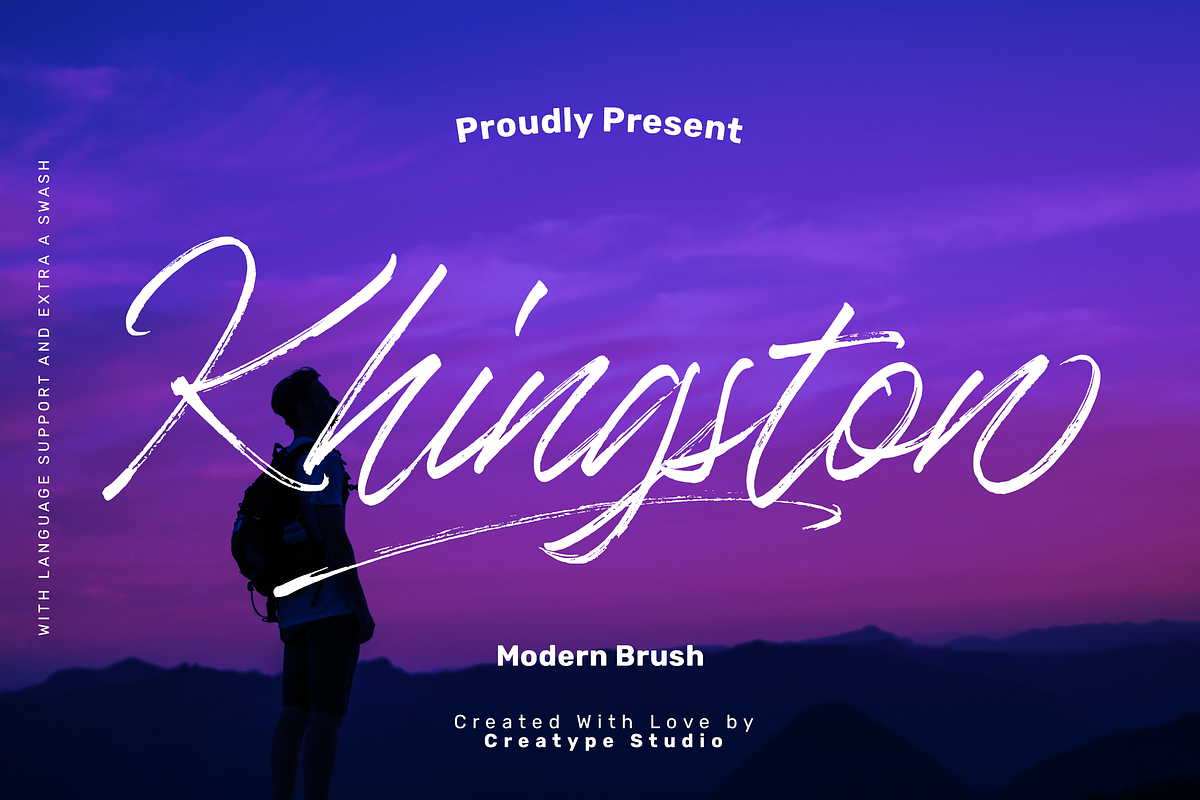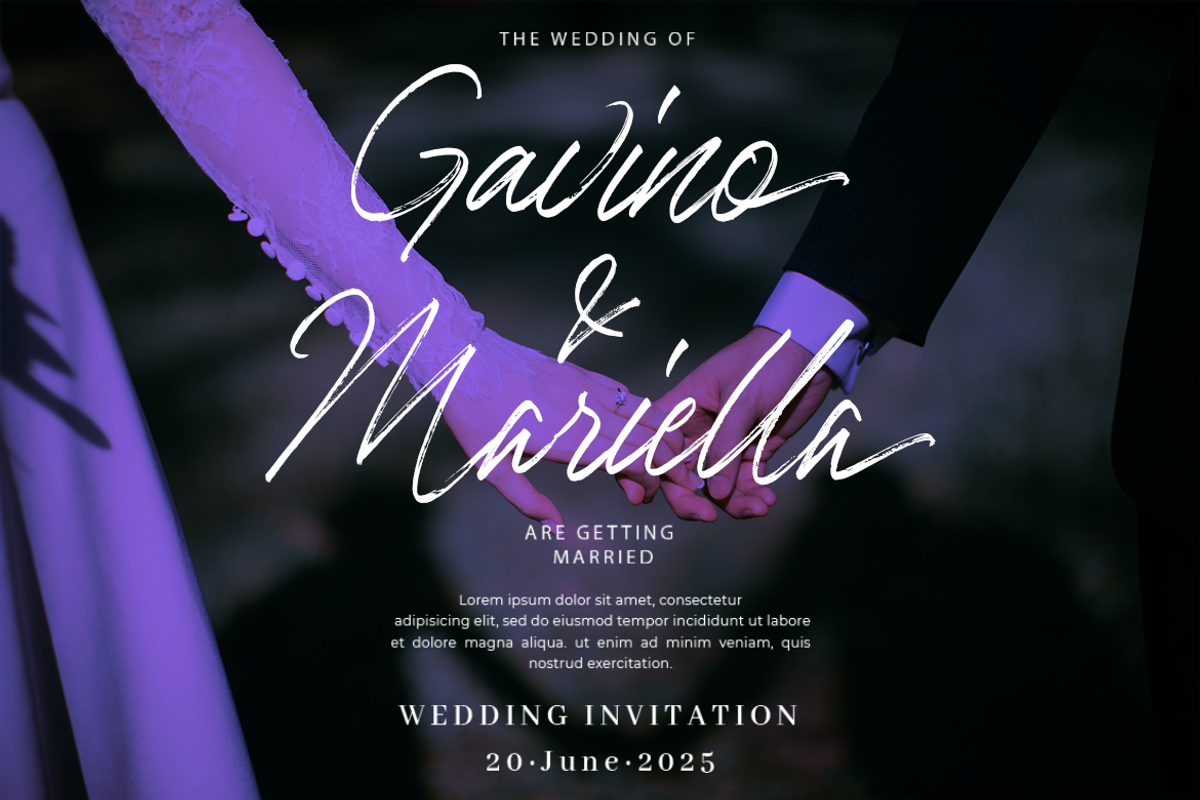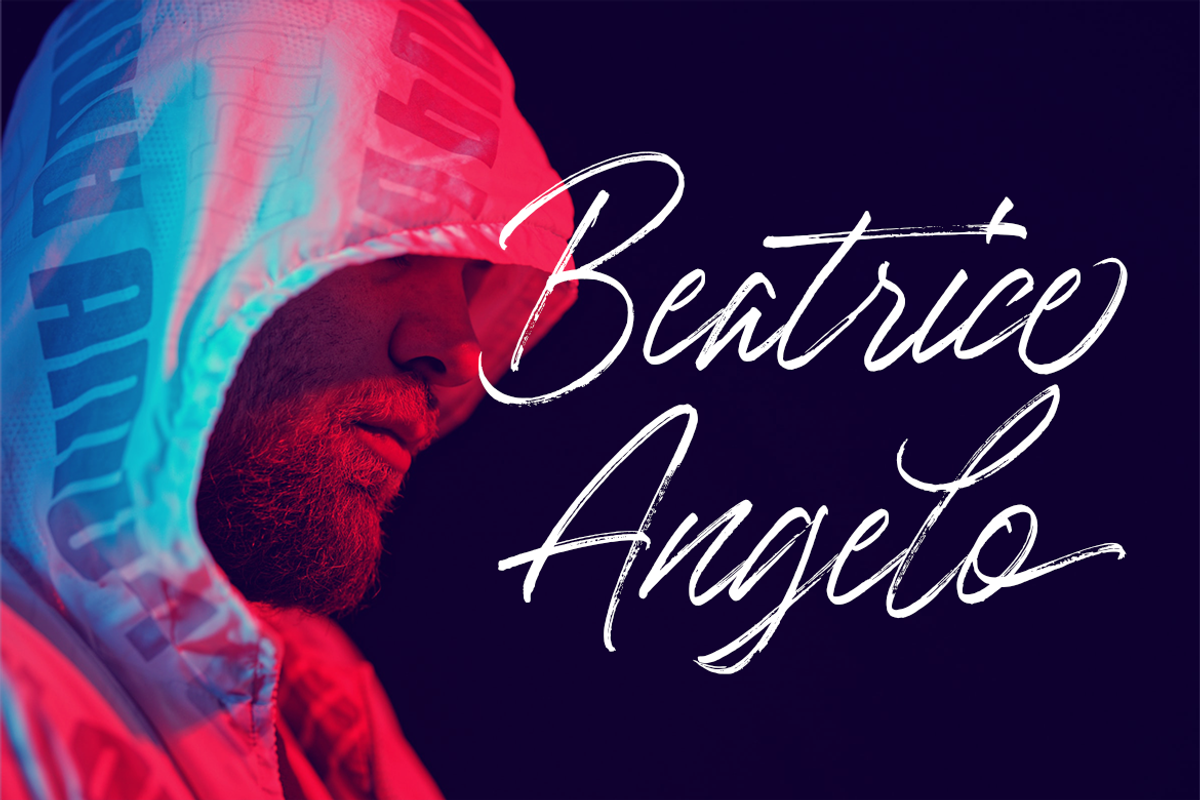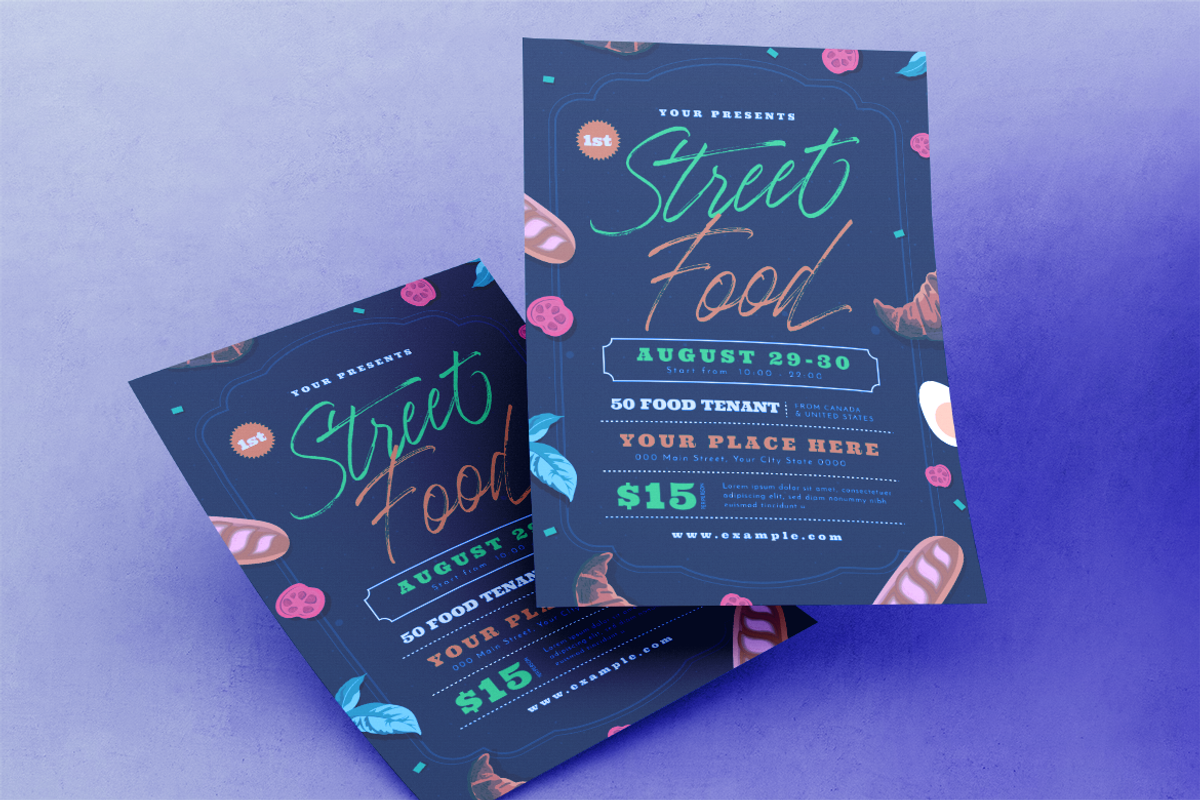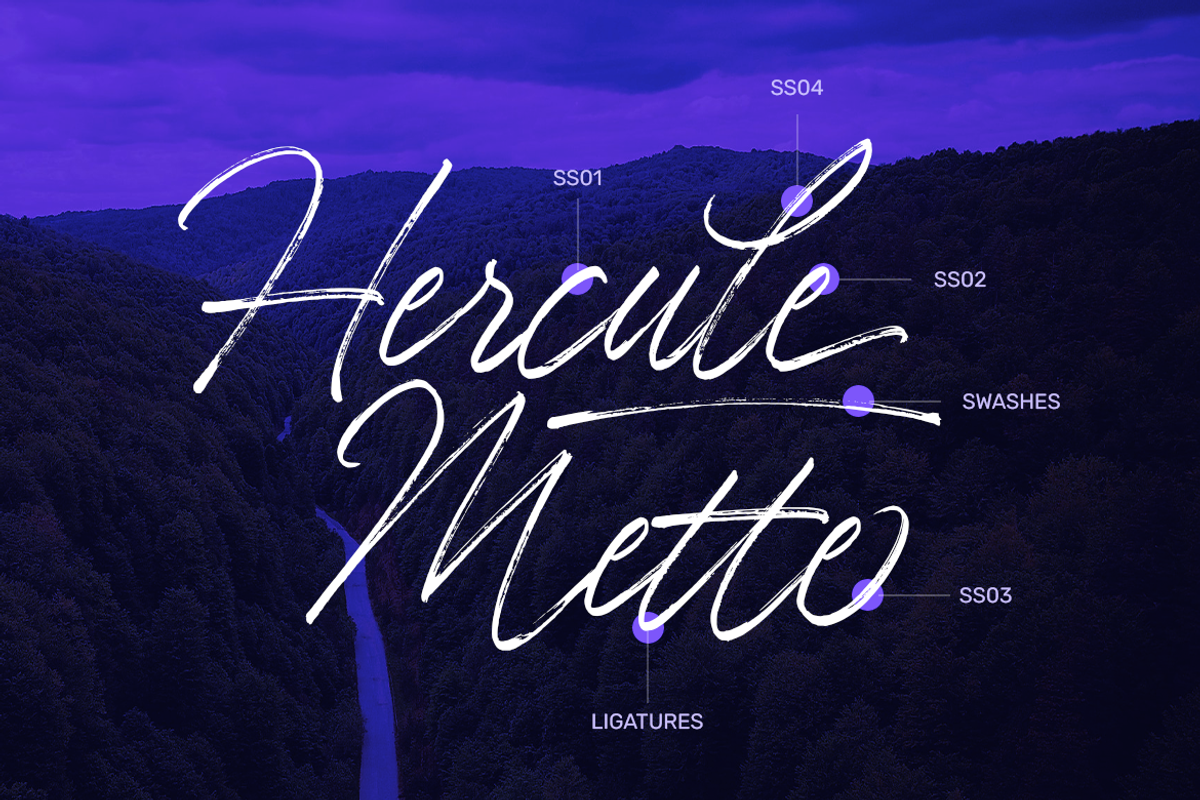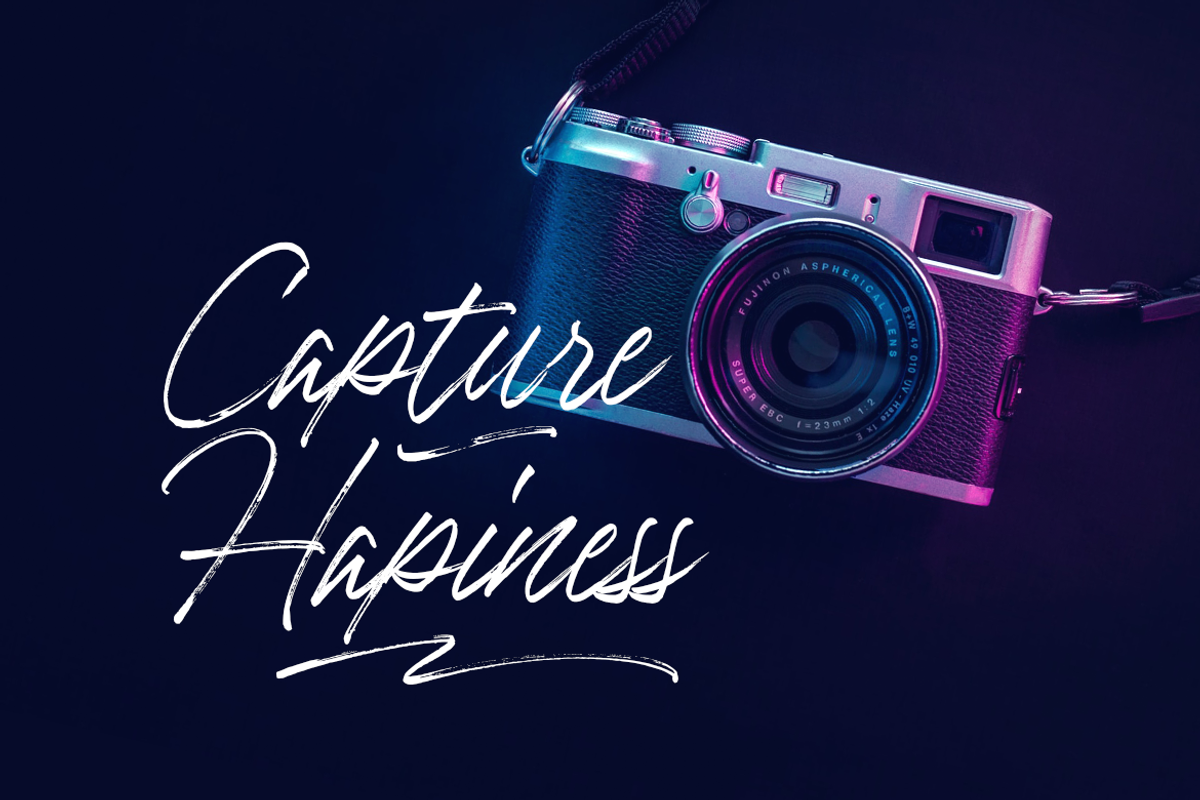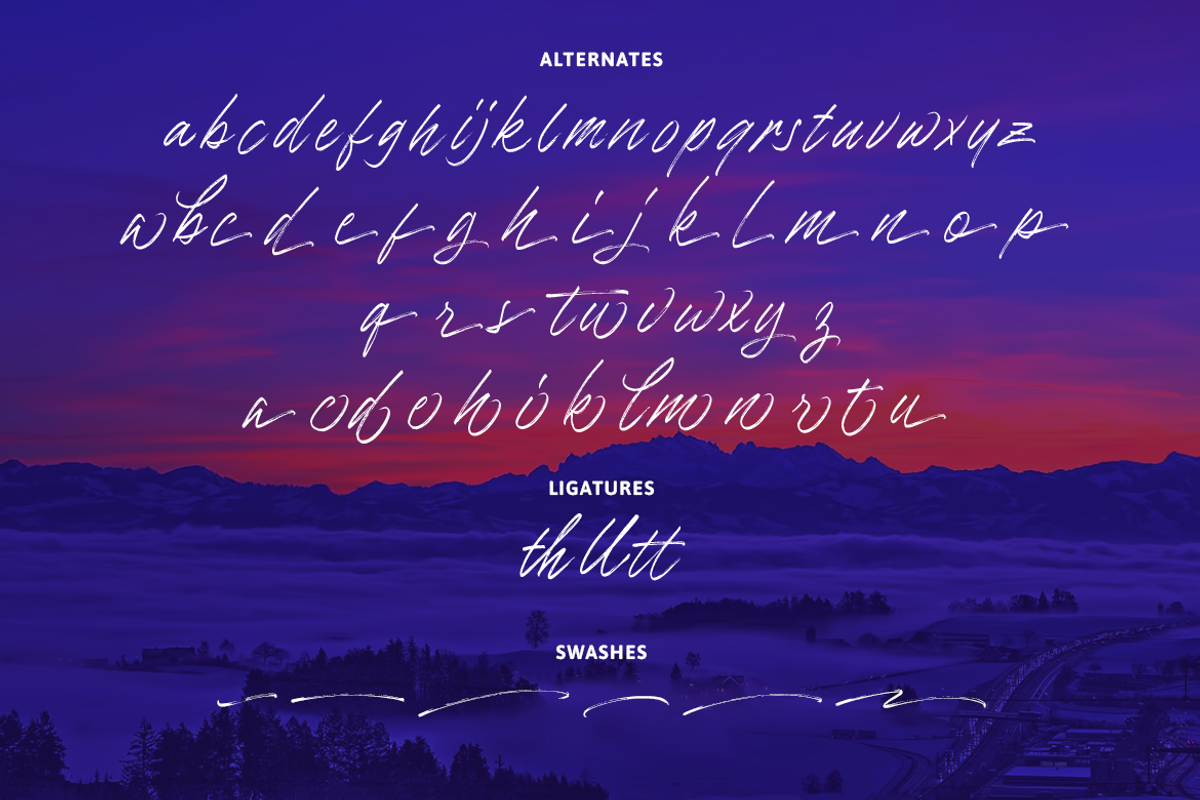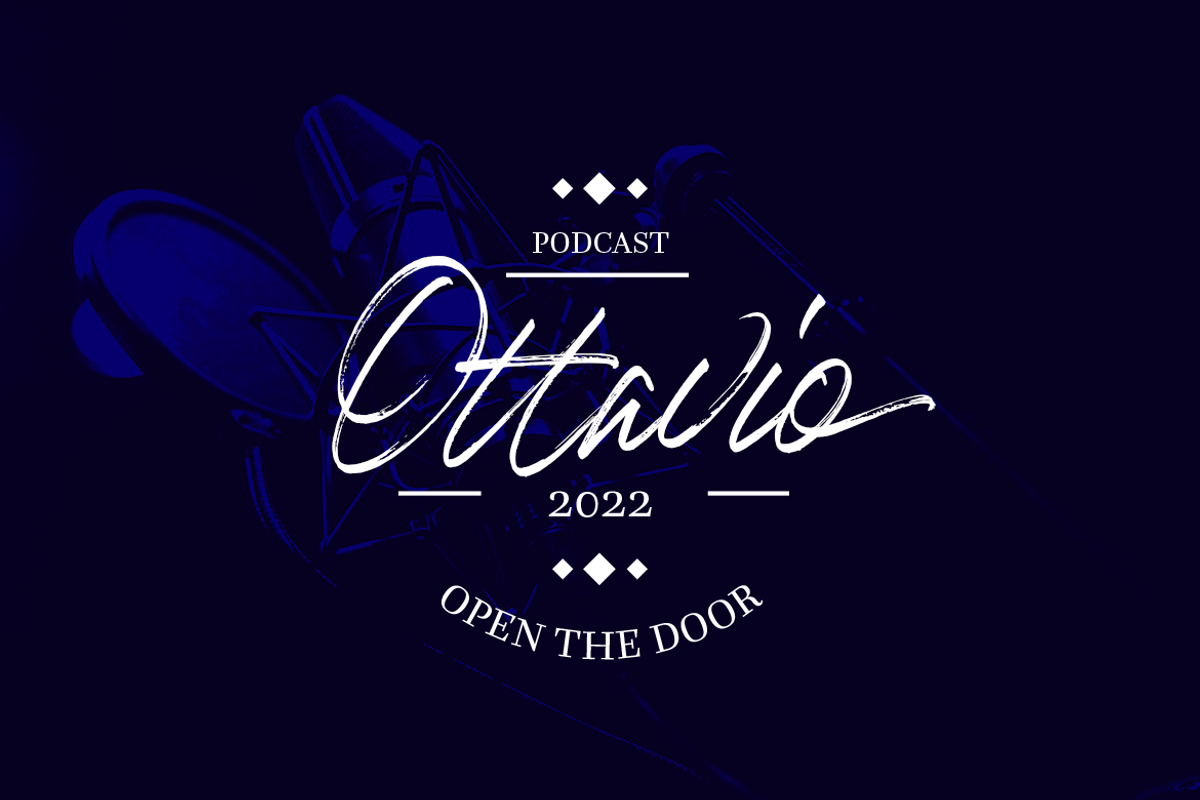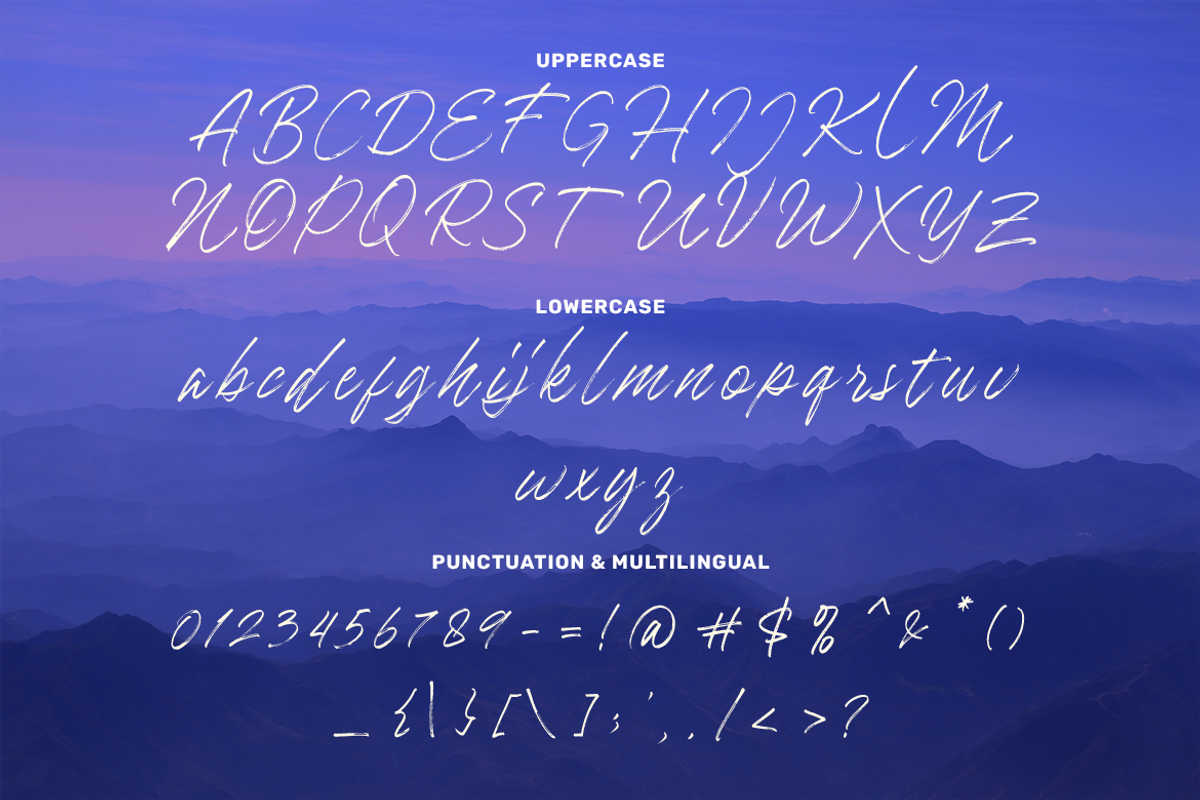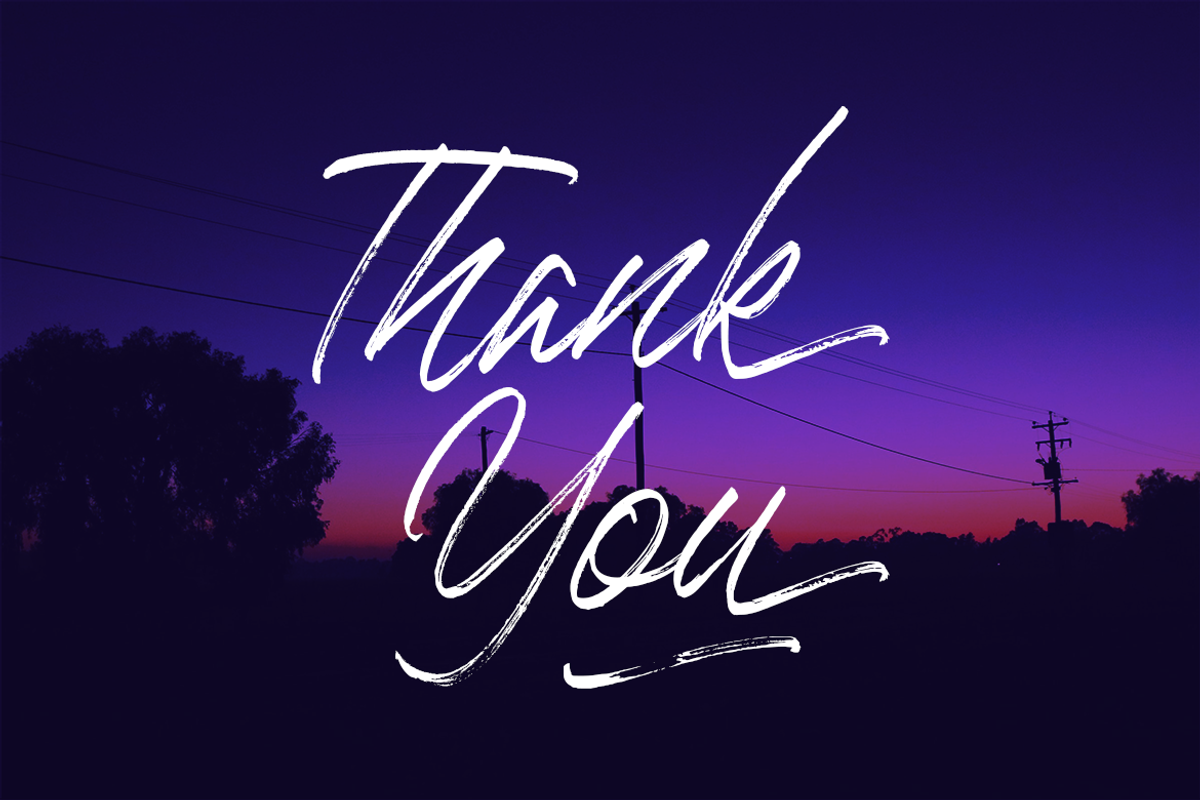
Khingston Brush Script
Khingston is a modern brush font with attractive details. The brush effect gives friendly and attractive vibes. Level up your design by using this typeface!
Khingston is perfect for branding projects, logo, wedding designs, social media posts, advertisements, product packaging, product designs, label, photography, watermark, invitation, stationery and any projects that need handwriting taste.
- Ligature & Alternate